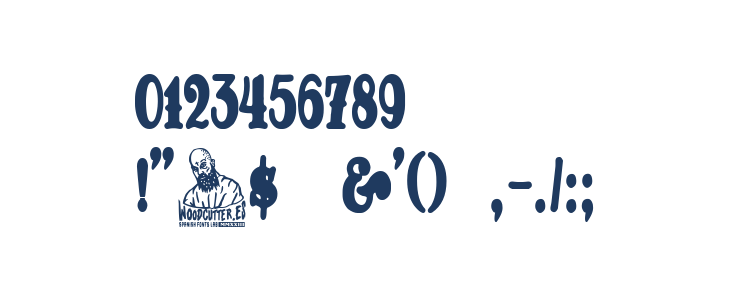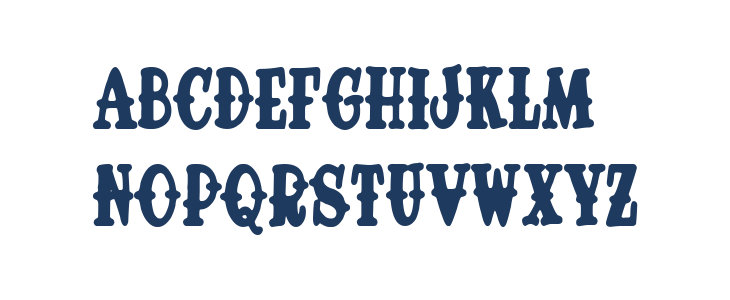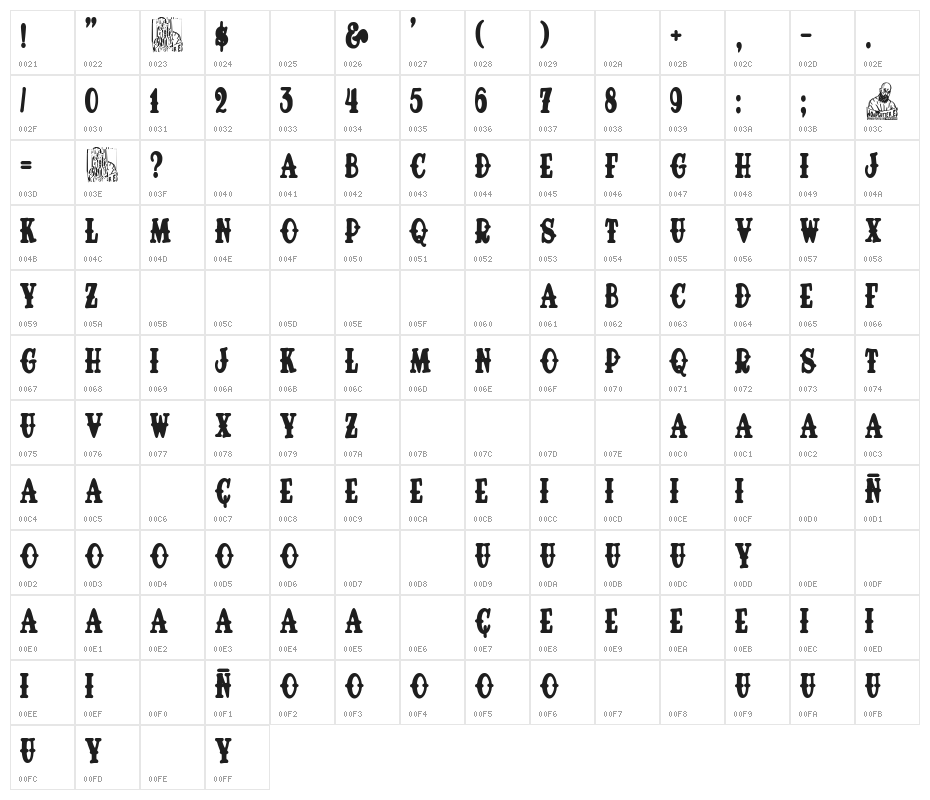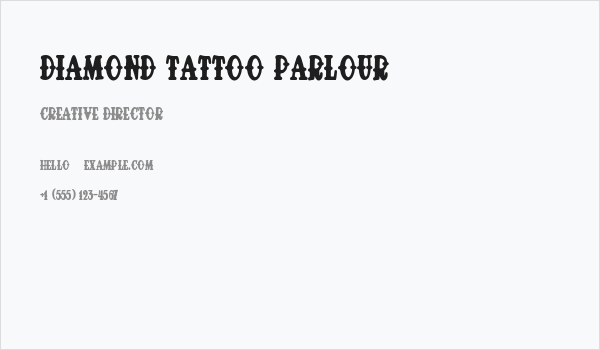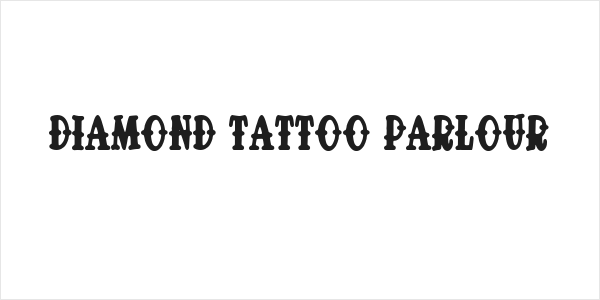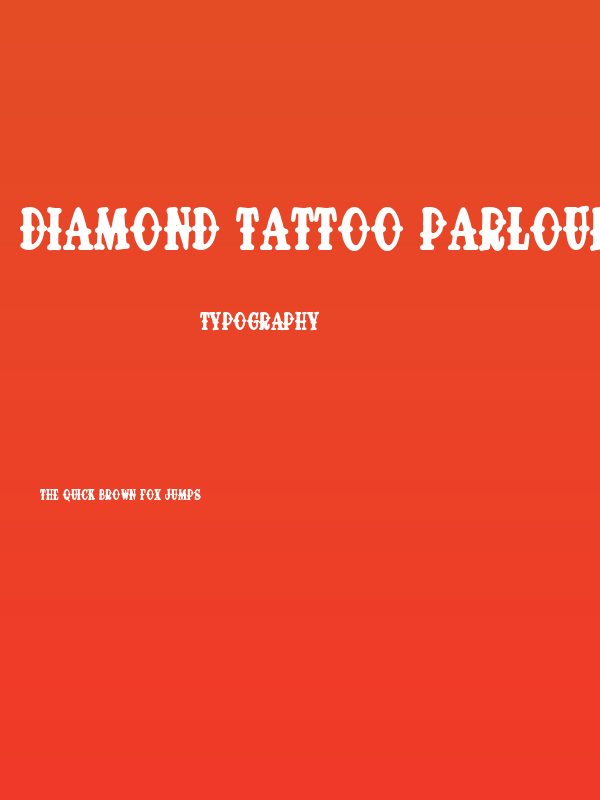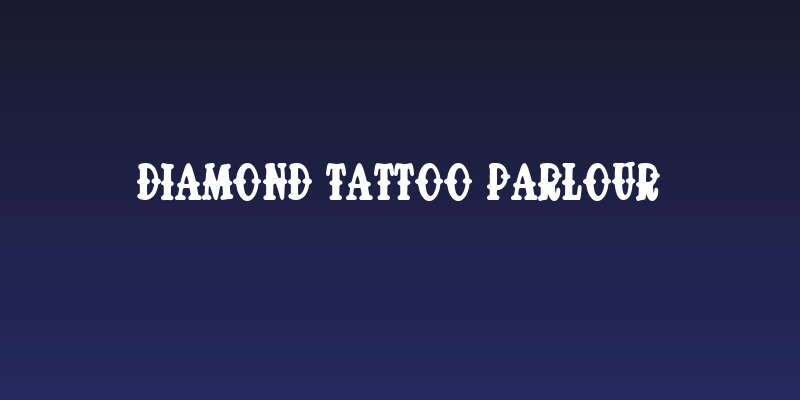
Diamond Tattoo Parlour Font
Diamond Tattoo Parlour Description
A bold, decorative display font with thick, uneven strokes and pronounced serifs, evoking a vintage tattoo or circus poster style. The letterforms are playful and irregular, with a hand-drawn, rugged appearance.
| Overall Style | Vintage, Decorative |
| Use Case | Headlines, Logos, Posters, Signage |
| Proposed Projects | Tattoo shop branding, posters, signage, event flyers, vintage-themed designs, logo design. |